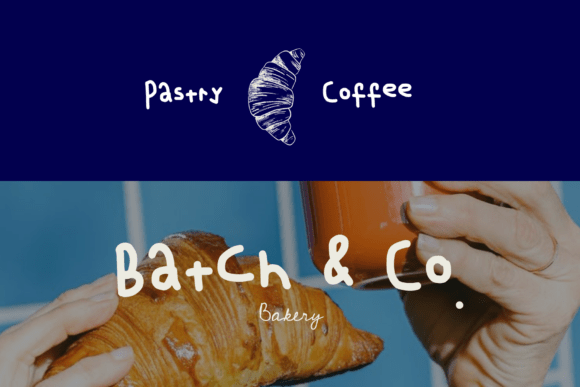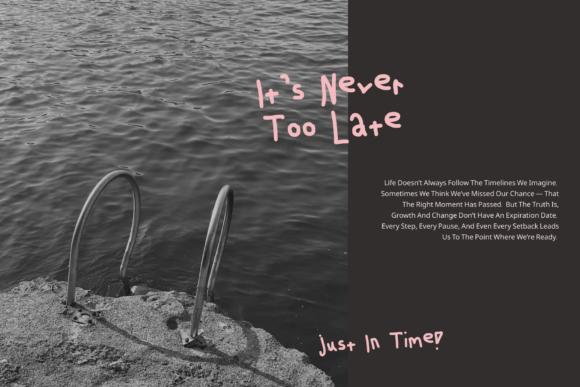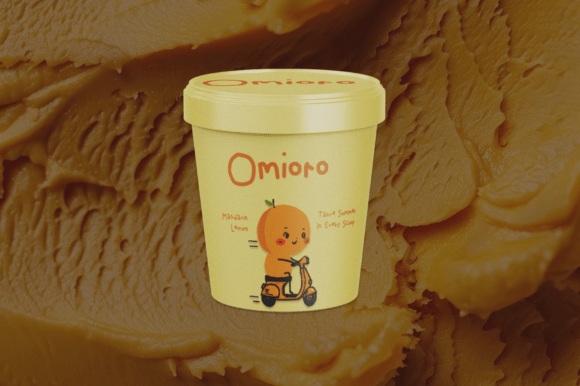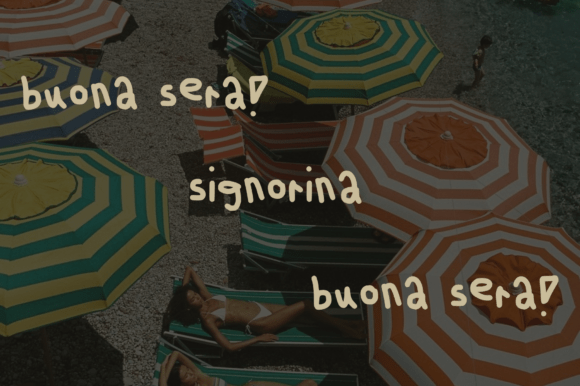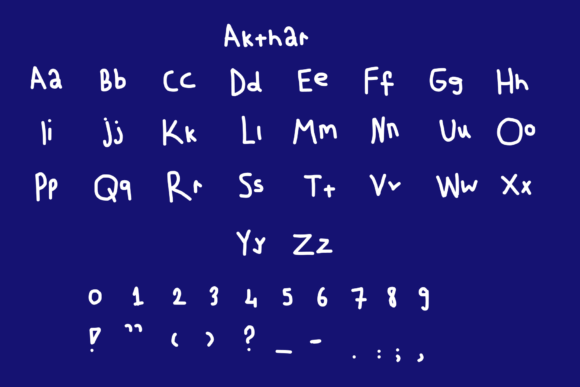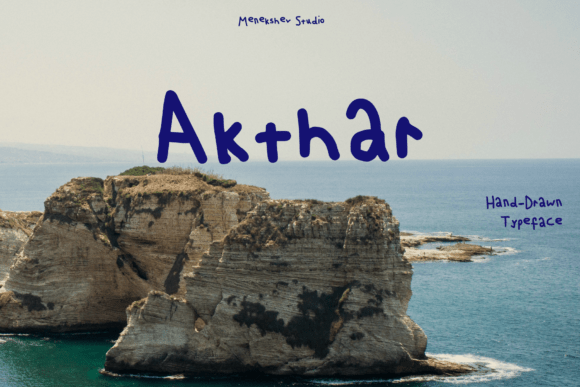
Meet Akthar: The Playful Hand-Drawn Typeface that Brings Authenticity to Your Designs
Are you tired of using the same old fonts in your designs? Do you want to add a touch of personality and whimsy to your projects? Look no further than Akthar, a delightful hand-drawn typeface that’s inspired by real pen strokes and effortless creativity. In this article, we’ll dive into the unique features of Akthar and explore how it can bring a fresh, playful vibe to your designs.
The Charm of Imperfection
Akthar’s charm lies in its deliberately uneven, slightly wobbly edges and inconsistent stroke thickness. This unpolished, organic style creates a feeling of fun, spontaneity, and approachability, making it perfect for designs that need a friendly, raw, and unpretentious visual voice. The font’s imperfections are what make it so endearing, giving it a distinctly human feel that’s hard to replicate with more polished typefaces.
Inspired by Real Pen Strokes
Akthar is inspired by the imperfect, wobbly lines that come from drawing with a thick crayon or marker. The font’s creator sought to capture the essence of casual, effortless creativity, and the result is a typeface that’s reminiscent of a child’s handwriting. This playful, carefree spirit makes Akthar an excellent choice for children’s educational materials, playful mobile apps, and casual video titles.
Akthar’s versatility makes it suitable for a wide range of projects. Its solid weight ensures clear visibility even in busy contexts, making it perfect for:
• Children’s educational materials: Add a playful touch to your learning resources with Akthar’s fun, engaging font.
• Playful mobile apps: Give your app a friendly, approachable feel with Akthar’s whimsical typeface.
• Casual video titles: Add a touch of personality to your video titles with Akthar’s unique, hand-drawn style.
• Organic food packaging: Bring a sense of freshness and wholesomeness to your packaging with Akthar’s earthy, organic feel.
• Branding: Use Akthar to add a touch of human charm to your brand’s visual identity.
• Social media graphics: Make your social media graphics stand out with Akthar’s playful, eye-catching font.
What Sets Akthar Apart
So, what makes Akthar unique? Here are a few key features that set it apart from other typefaces:
• Hand-drawn: Akthar is a genuine hand-drawn typeface, with all the imperfections and quirks that come with it.
• Organic rhythm: Akthar’s rounded shapes and wobbly edges create a sense of organic rhythm, making it perfect for designs that need a touch of personality.
• Warm personality: Akthar’s playful, whimsical style gives it a warm, engaging personality that’s hard to resist.
Bringing Authenticity to Your Designs
In today’s digital age, it’s easy to get lost in a sea of generic, cookie-cutter designs. Akthar offers a refreshing alternative, bringing a sense of authenticity and humanity to your projects. By using a hand-drawn typeface like Akthar, you can:
• Add a personal touch: Akthar’s imperfections and quirks make it feel like a personal, hand-written message.
• Stand out from the crowd: Akthar’s unique style ensures that your designs will stand out from the crowd.
• Create an emotional connection: Akthar’s warm, engaging personality helps create an emotional connection with your audience.
In conclusion, Akthar is a playful hand-drawn typeface that’s perfect for designers and crafters looking to add a touch of personality and whimsy to their projects. Its unique features, versatility, and warm personality make it an excellent choice for a wide range of designs. So why settle for generic, impersonal typefaces when you can bring authenticity and humanity to your designs with Akthar?